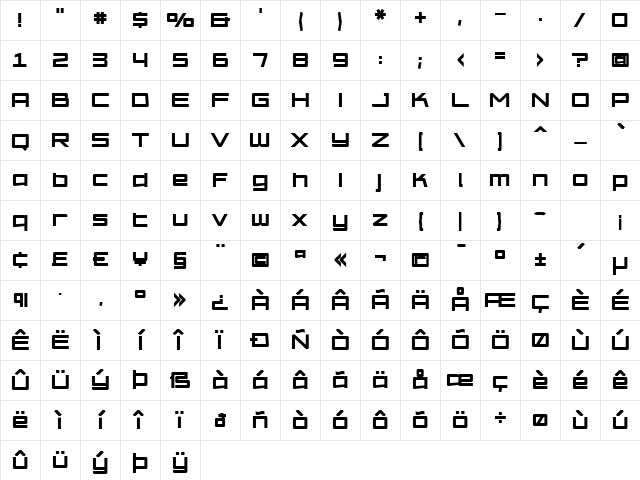
Amp Bold Free Font
Amp Bold
Design Context for Amp
Amp is a composed and adaptable typeface that performs quietly and consistently across a wide range of design contexts. Its bold stroke weight gives it real presence on the page.